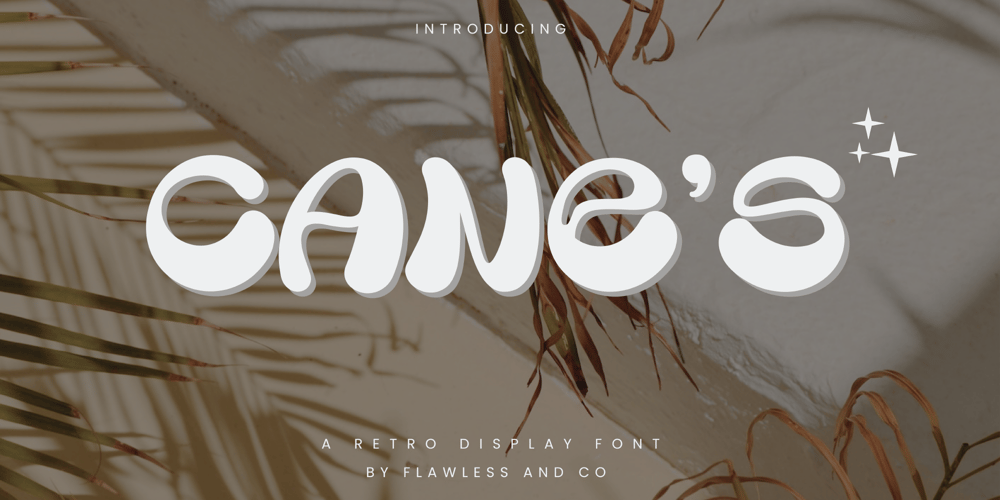
Canes
Canes font
Canes Font Family was designed by Achmad Yani and published by Flawlessandco. Canes contains 1 styles and family package options. Introducing “Cane’s” – A Retro Display Font. Transport your designs to the golden age of retro with “Cane’s,” a charismatic display font that captures the essence of vintage aesthetics.There’s some connected letters and some alternates that suitable for any graphic designs such as branding materials, t-shirt, print, business cards, logo, poster, t-shirt, photography, quotes .etcThis font support for some multilingual. Also contains uppercase A-Z and lowercase a-z, alternate character, numbers 0-9, and some punctuation.If you need help, just write me! Thanks so much for checking out my shop!